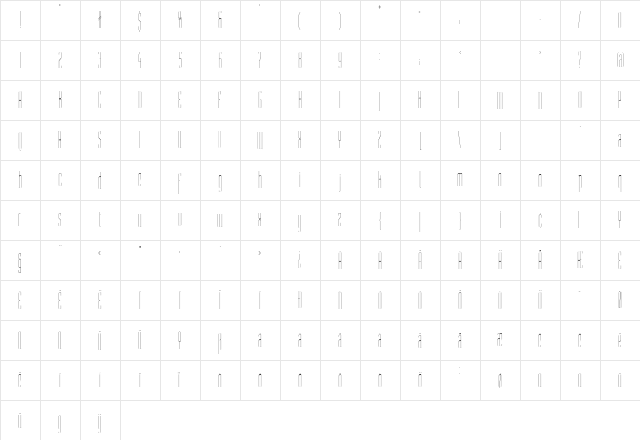
ST Moviehead Ultra-condensed UltraLight
| Foundry | Sascha Timplan |
| Designer | Sascha Timplan |
Design Context for ST Moviehead Typeface
ST Moviehead offers clean, dependable letterforms without strong stylistic allegiance, making it a practical choice for designers who need flexibility. The delicate stroke weight brings airiness and refinement to layouts. The condensed width makes it efficient for tight spaces without sacrificing legibility.